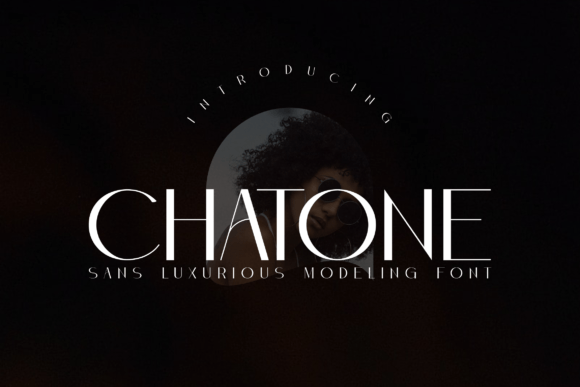
A Font that Speaks to Your Soul
Have you ever been browsing through a magazine or scrolling through social media and stumbled upon a font that immediately caught your eye? For many designers, this is a moment of pure inspiration – and it’s exactly what happened when we discovered the Chatone Font. This sans-serif masterpiece is more than just a pretty face; it’s a carefully crafted tool designed to provide a visually pleasing and comfortable reading experience.
Whether you’re a beauty brand looking to elevate your packaging or a designer seeking a luxurious touch for your next project, the Chatone Font is an invaluable asset. Its characters exude a comforting touch, while also embodying a sense of high-end sophistication – making it the perfect choice for those who appreciate a touch of luxury in their choices.
Key Features of Chatone Font
- Font Family: Chatone Font is a sans-serif font family designed for digital use, with multiple weights and styles available.
- Size and Resolution: Chatone Font is designed to be highly legible at various sizes and resolutions, making it suitable for use in digital media, including screens and print materials.
- Unique Characteristics: Chatone Font features a clean and modern design with subtle rounded edges, giving it a friendly and approachable feel.
- Weight and Style Options: The Chatone Font family includes multiple weights, from light to bold, as well as italic and bold italic styles, providing users with a range of options for different design needs.
- Language Support: Chatone Font supports a wide range of languages, including Latin, Cyrillic, and Greek scripts, making it a versatile choice for global design projects.
Chatone Font Review
When I first laid eyes on the Chatone font, I was immediately drawn to its modern and sleek aesthetic ✨. The font’s unique blend of sans-serif and script elements gives it a fresh and contemporary feel that’s perfect for digital design projects.
The font’s versatility is another major plus ✨. It’s suitable for a wide range of applications, from headlines and titles to body text and even logos. The font’s legibility is also top-notch, making it an excellent choice for content-heavy projects.
However, I did encounter some limitations while working with Chatone ⚠️. One of the main issues I faced was with the font’s spacing. In some instances, the letterforms felt a bit too tight, which can make text appear cramped and difficult to read.
Another area for improvement is the font’s support for non-Latin scripts ⚠️. While Chatone does support some non-Latin scripts, it falls short in its coverage, which can be a problem for designers working on multilingual projects.
- Modern and sleek aesthetic ✨
- Highly versatile ✨
- Legible and easy to read ✨
- Some issues with spacing ⚠️
- Limited support for non-Latin scripts ⚠️
Despite some minor limitations, I’m overall impressed with the Chatone font. Its unique design and versatility make it a solid choice for designers looking for a modern and stylish font. With some minor tweaks to address the spacing and non-Latin script issues, Chatone has the potential to become a go-to font for digital designers.
Getting the Most Out of Chatone Font
To get the most out of Chatone Font, use it for:
- Casual, friendly text
- Emphasis and highlight text
Chatone Font is commonly used in:
- Health and wellness marketing
- Social media graphics